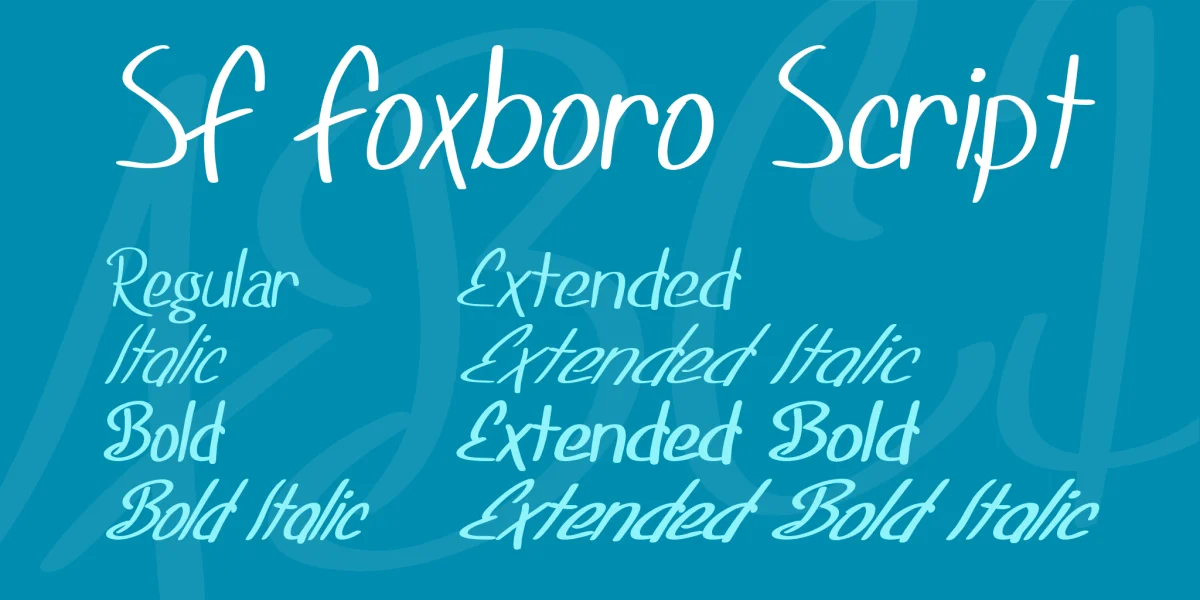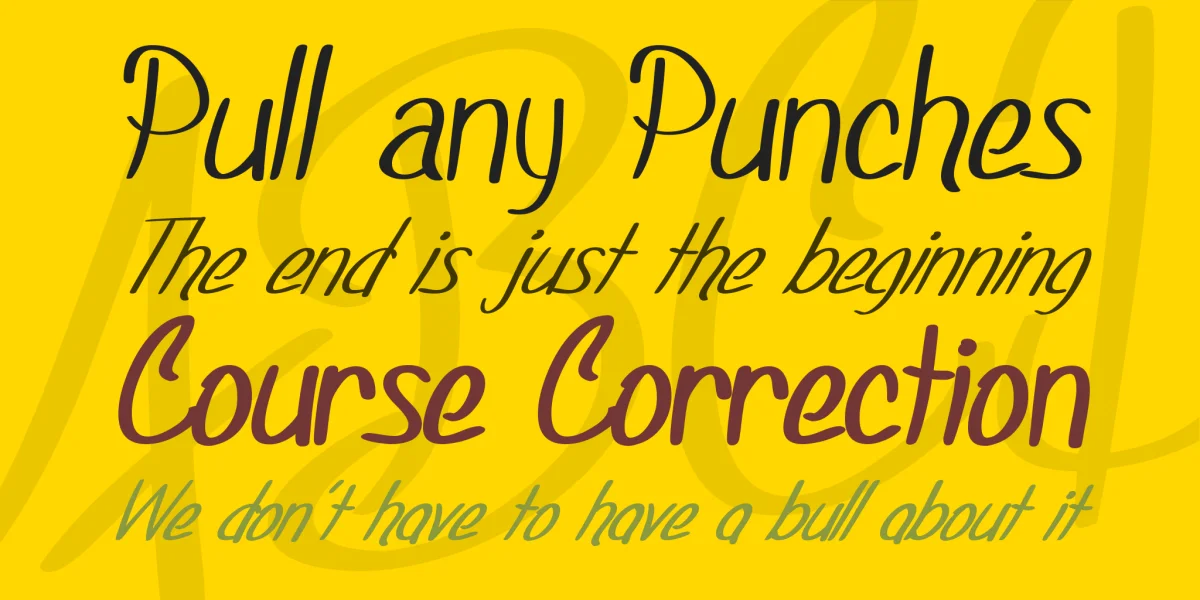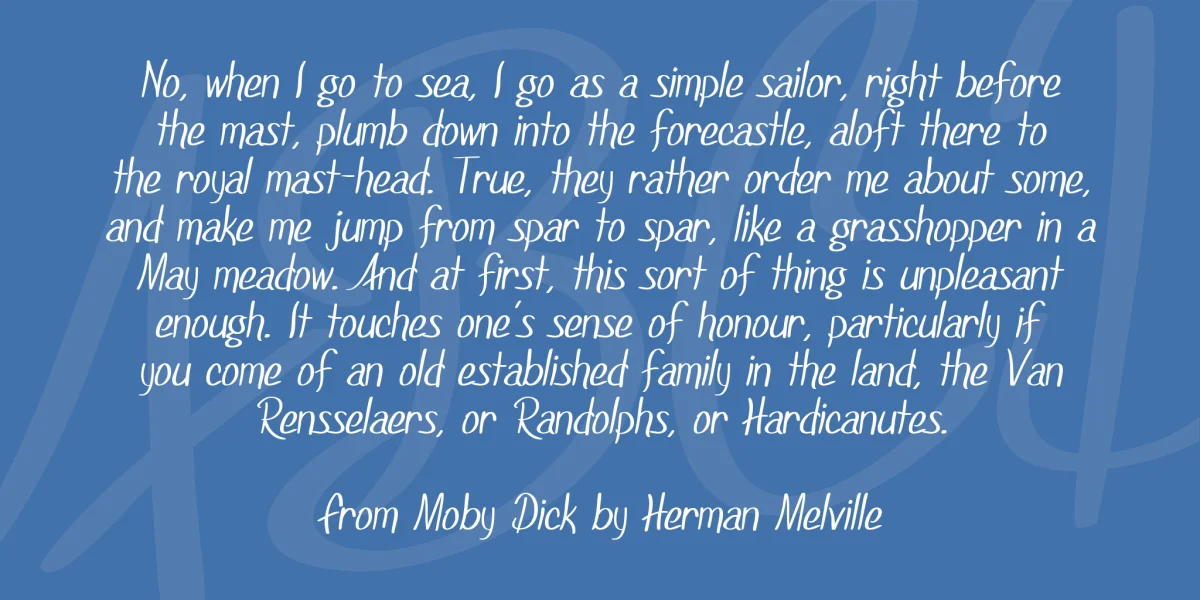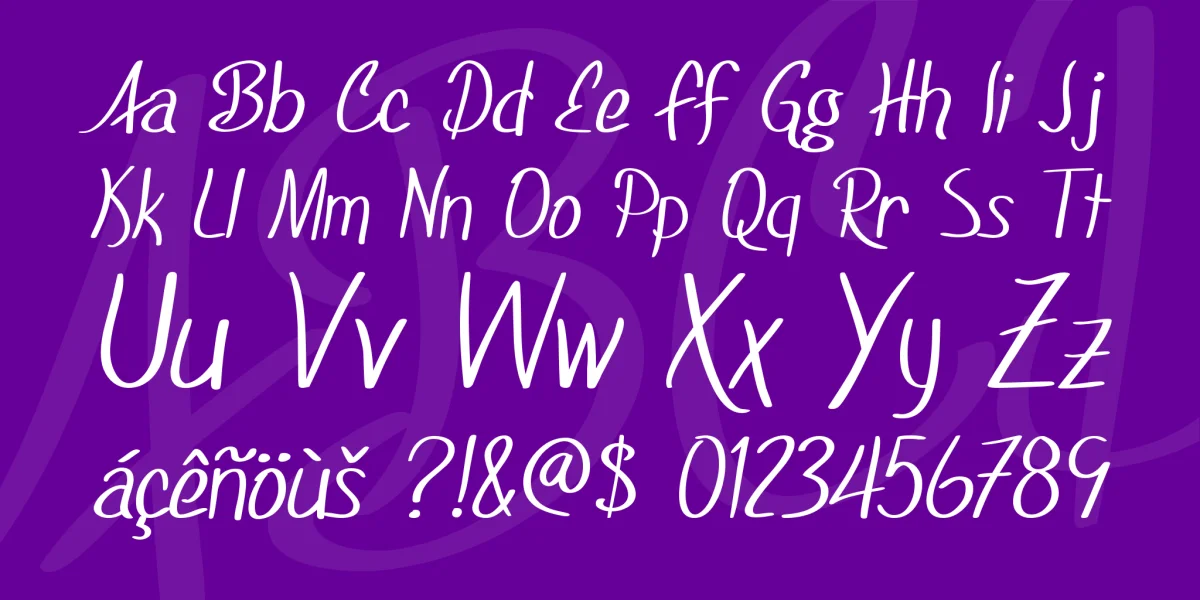
Completely designed by hand with an Intuos graphics tablet, SF Foxboro Script contains lowercase and uppercase letters, numbers, punctuation, and accented characters.